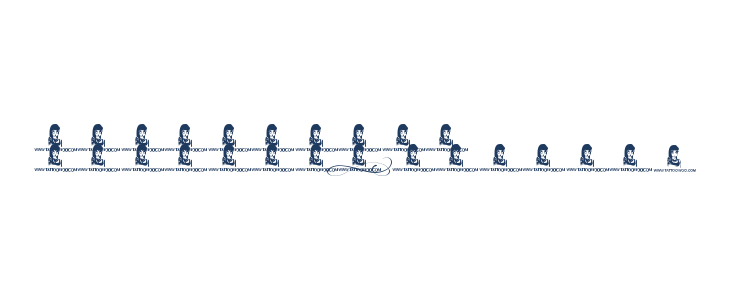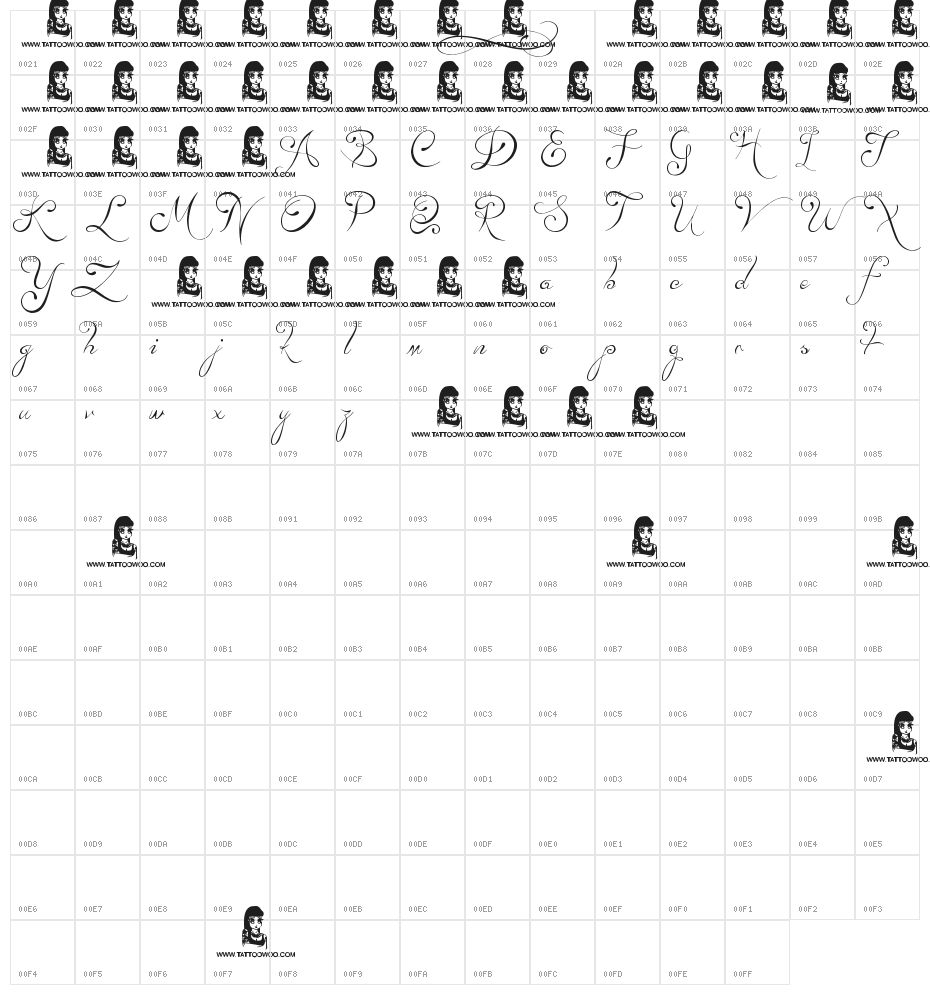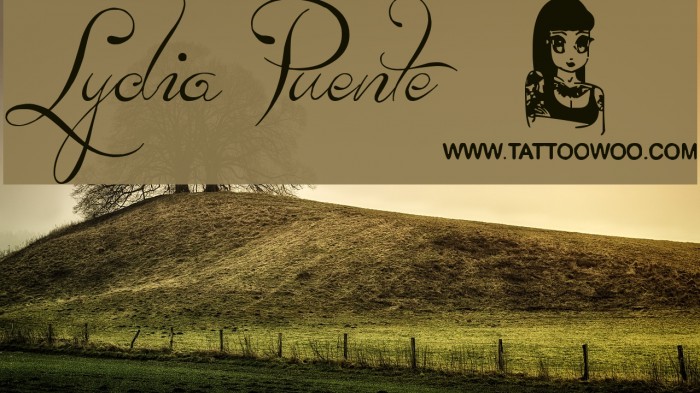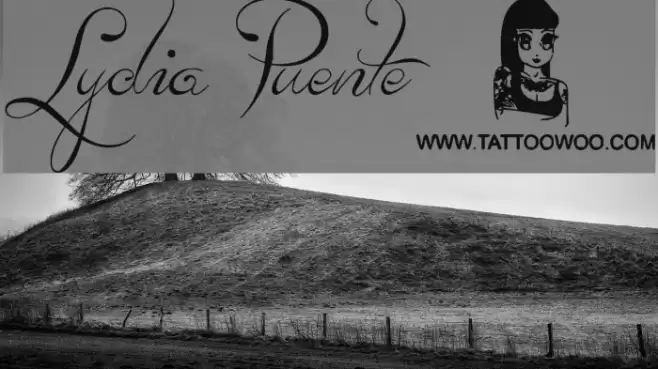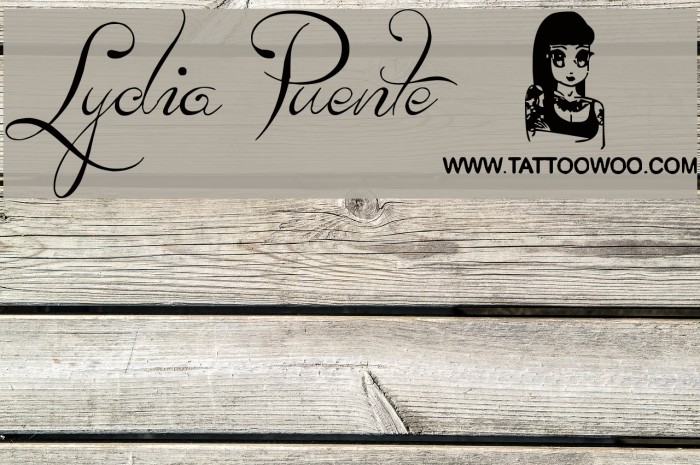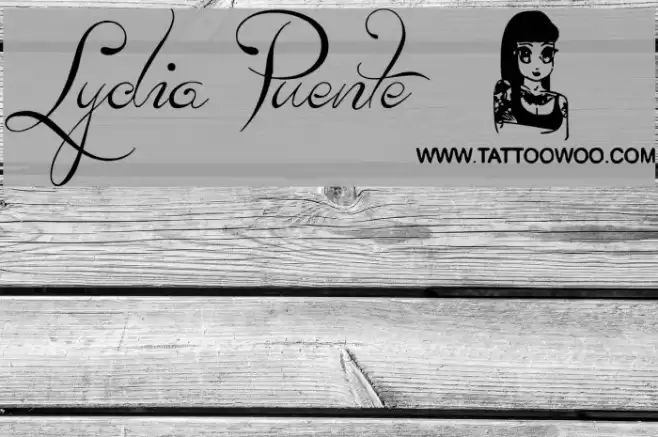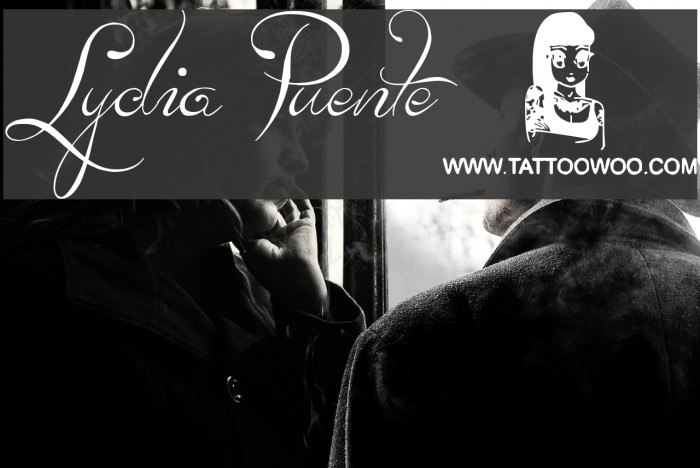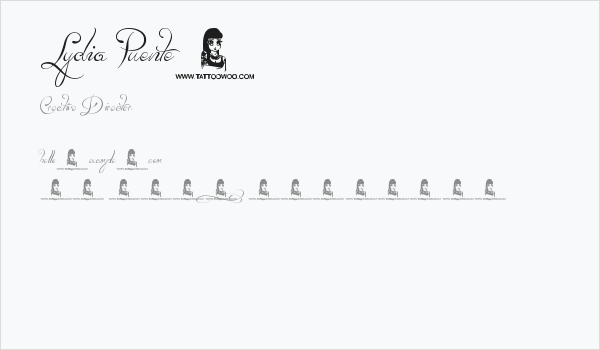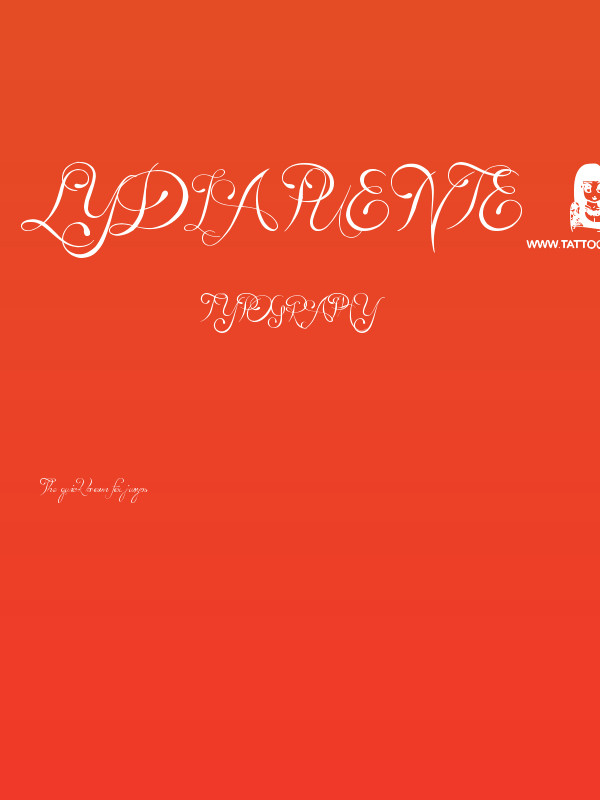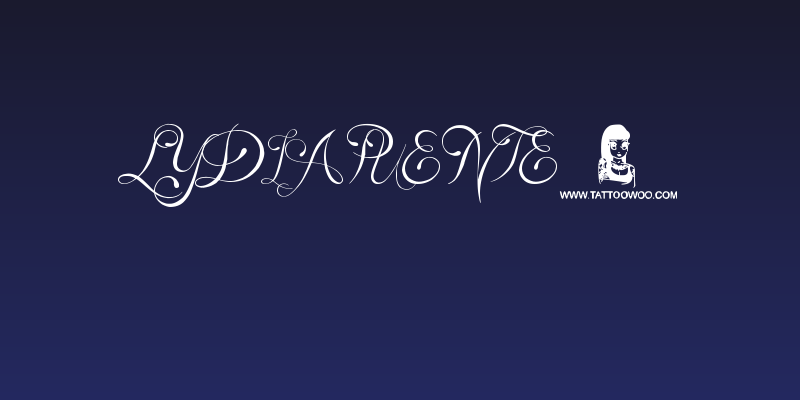
Lydia Puente] Font
Lydia Puente] Description
This font is an elegant and sophisticated script style, characterized by its flowing and intricate letterforms. The uppercase letters are adorned with elaborate swashes and flourishes, giving them a highly decorative appearance. The lowercase letters maintain a graceful continuity, with some featuring subtle loops and curls. The overall design exudes a sense of luxury and refinement, making it suitable for formal and high-end applications. The font's delicate strokes and high contrast between thick and thin lines enhance its visual appeal, while the generous spacing between characters ensures readability.
| Proposed Projects | Ideal for wedding invitations, luxury branding, high-end product packaging, and elegant event signage. |